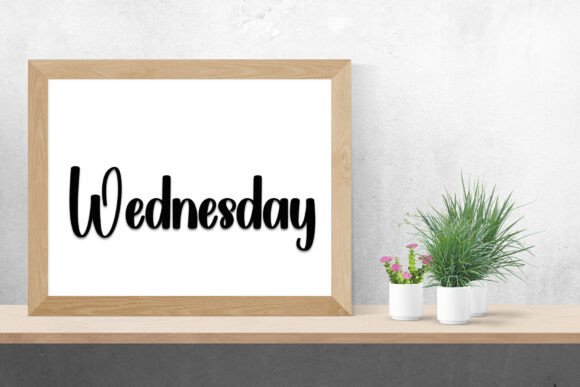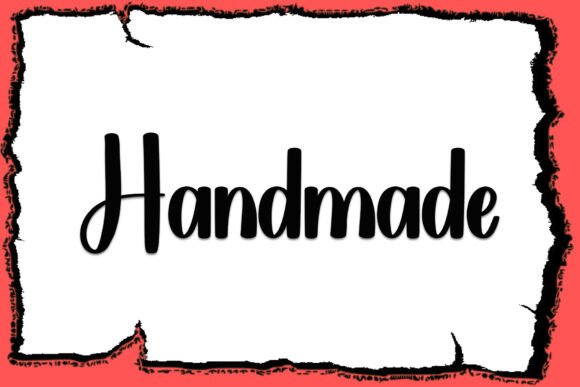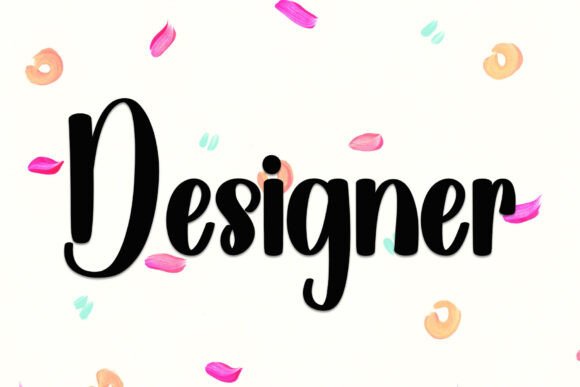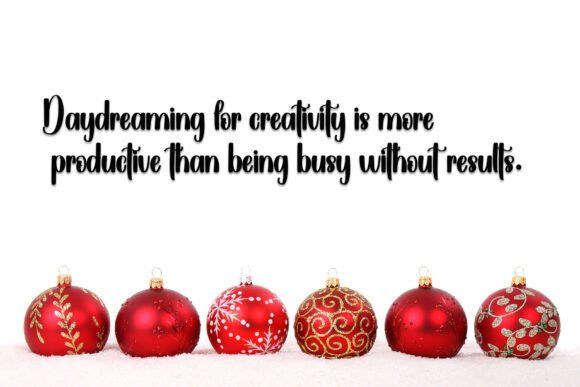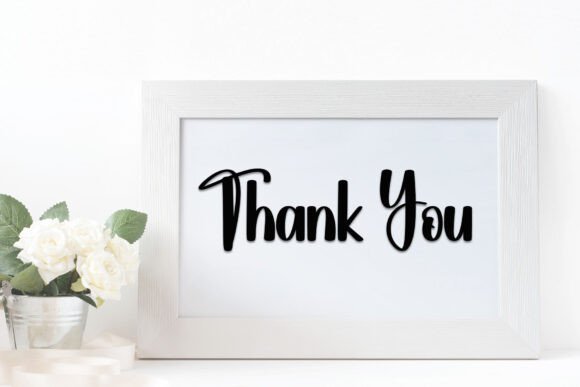
Dingbats Font: Elevate Your Designs with Elegance and Sophistication
In the world of typography, fonts play a crucial role in conveying the tone and personality of a design. For designers and crafters seeking to add a touch of elegance and class to their projects, Dingbats Font is an excellent choice. This trendy handwritten font boasts a contemporary atmosphere and impeccable form, drawing inspiration from timeless classic calligraphy.
The Inspiration Behind Dingbats Font
Dingbats Font is rooted in the rich tradition of calligraphy, with a modern twist that sets it apart from more traditional fonts. The creators of Dingbats Font sought to capture the essence of classic calligraphy, while infusing it with a fresh, contemporary vibe that appeals to modern designers. The result is a font that exudes sophistication and refinement, making it perfect for a wide range of design applications.
Key Features of Dingbats Font
So, what makes Dingbats Font so special? Here are some of its key features:
- Handwritten style: Dingbats Font boasts a beautiful, handwritten style that adds a personal touch to any design.
- Contemporary atmosphere: With its clean lines and modern aesthetic, Dingbats Font is perfect for designers seeking to create fresh, contemporary designs.
- Impeccable form: The font’s impeccable form ensures that it remains legible and elegant, even at small sizes.
- Inspired by classic calligraphy: Dingbats Font draws inspiration from timeless classic calligraphy, giving it a sense of tradition and heritage.
Uses for Dingbats Font
Dingbats Font is an incredibly versatile font that can be used in a wide range of design applications, including:
- Branding and logos: Add a touch of elegance and sophistication to your brand’s identity with Dingbats Font.
- Wedding and event designs: Dingbats Font is perfect for creating beautiful wedding invitations, programs, and other event materials.
- Packaging and product design: Use Dingbats Font to add a touch of class and sophistication to your product packaging.
- Stationery and paper goods: Create beautiful stationery, greeting cards, and other paper goods with Dingbats Font.
Tips for Using Dingbats Font
To get the most out of Dingbats Font, here are some tips to keep in mind:
- Use it sparingly: Dingbats Font is a statement font, so use it sparingly to add emphasis and elegance to your design.
- Pair it with complementary fonts: Pair Dingbats Font with complementary fonts to create a beautiful, harmonious design.
- Experiment with different sizes and colors: Don’t be afraid to experiment with different sizes and colors to find the perfect look for your design.
In conclusion, Dingbats Font is a stunning handwritten font that adds elegance and class to any design project. With its contemporary atmosphere, impeccable form, and inspiration from timeless classic calligraphy, it’s the perfect choice for designers and crafters seeking to create beautiful, sophisticated designs. Whether you’re working on a branding project, wedding design, or packaging project, Dingbats Font is sure to impress.